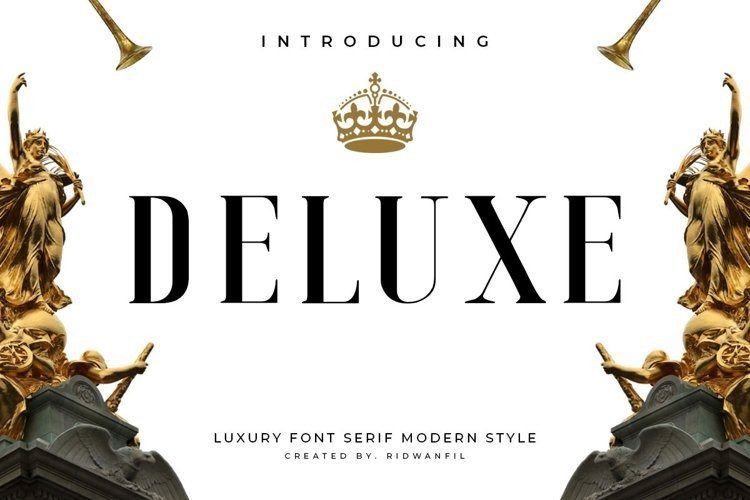
Deluxe Serif Font
Deluxe Font Family – Luxury Font Serif is a modern serif font family whose design refers as futuristic and expensive brand. The distinctive features of Deluxe Font Family – Luxury Font Serif are the relatively low strokes, and then more slightly square shapes of round characters and the emphasized businesslike nature.
Deluxe Font Family – Luxury Font Serif features an unique typeface stylistic set which when use to some of the Uppercase, lowercase characters ane multilinguals as well.
Deluxe font Family – Luxury Serif Font has been crafted from scratch with a structural logic for balance and addition Value. with combining a variety of styles Serif, Sophicated And Luxuriess.